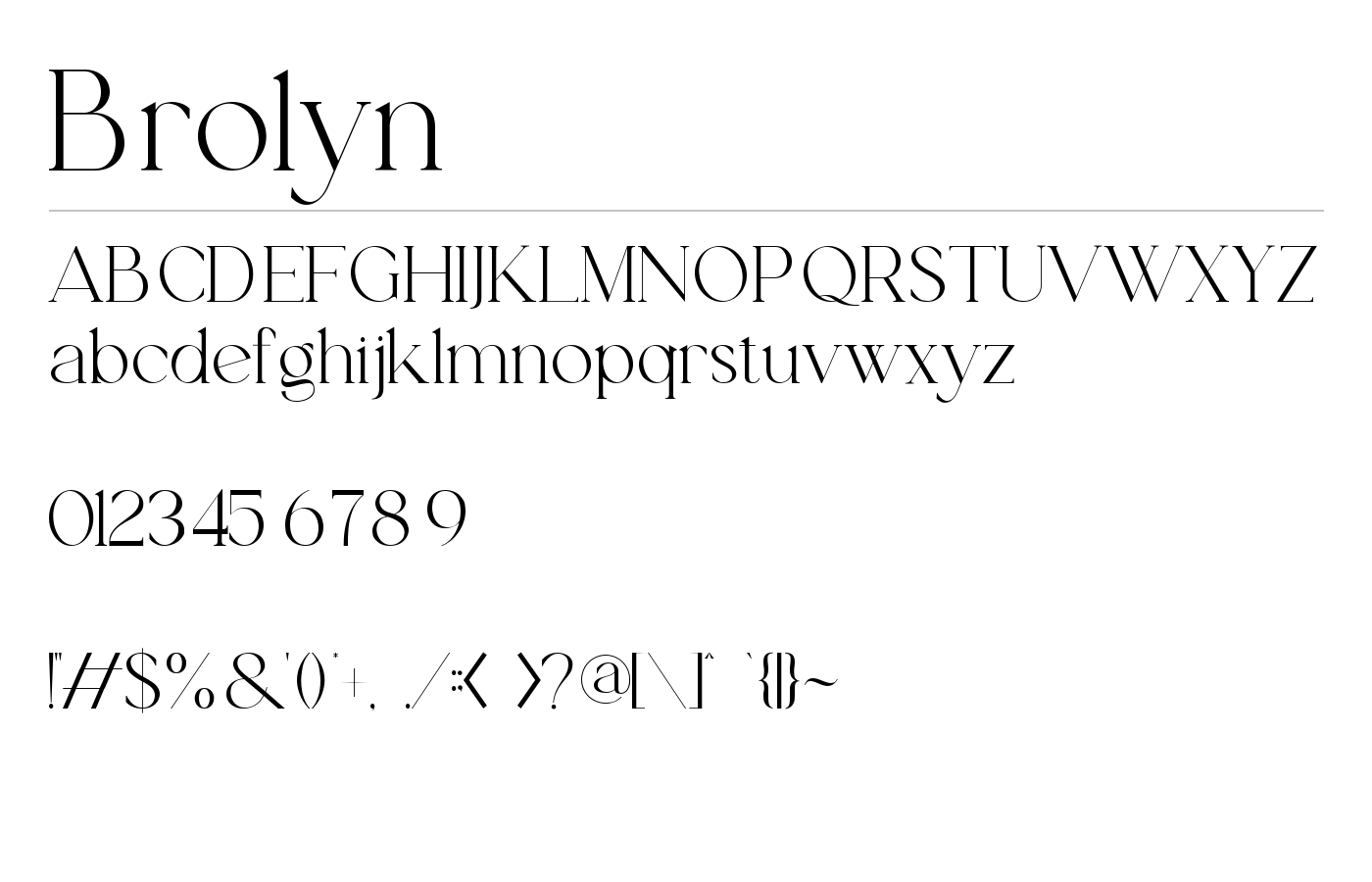
Brolyn is an elegant serif font with a thin, delicate stroke and high contrast between thick and thin lines, offering a refined and sophisticated appearance. Its tall, narrow letterforms and subtle, bracketed serifs give it a modern yet classic feel, ideal for luxury branding, editorial design, and stylish headlines where a touch of grace and exclusivity is desired. This font works wonderfully in settings that demand a polished and upscale aesthetic.
Brolyn Font
About Brolyn Font
| Font family | Brolyn Font |
| Designer | SlideShoot2023 |